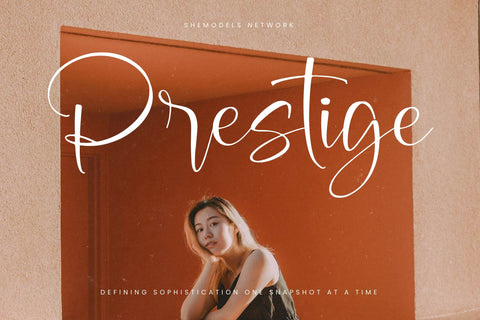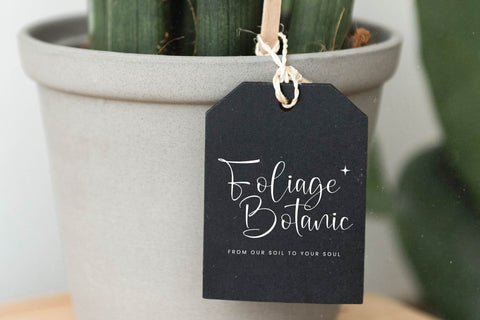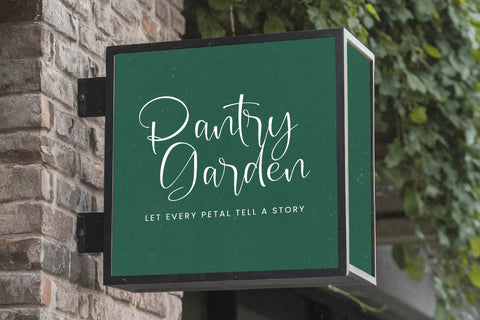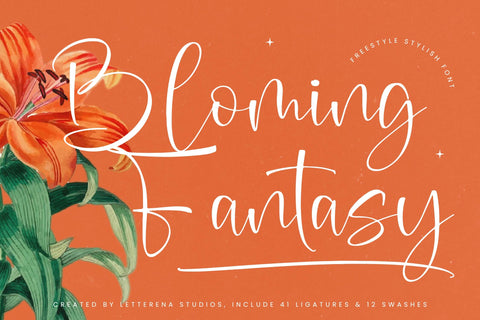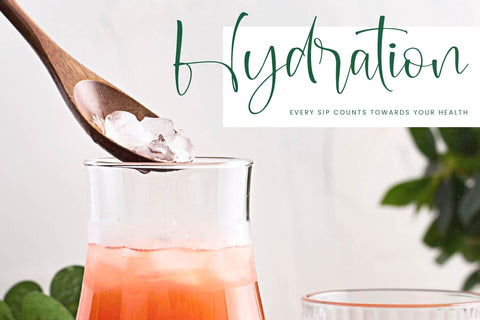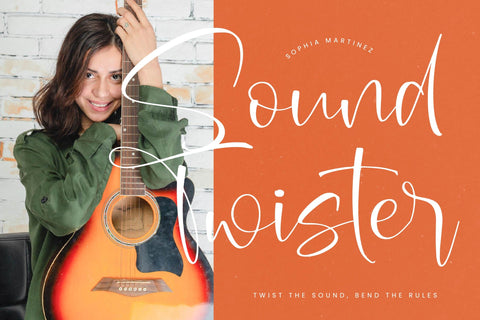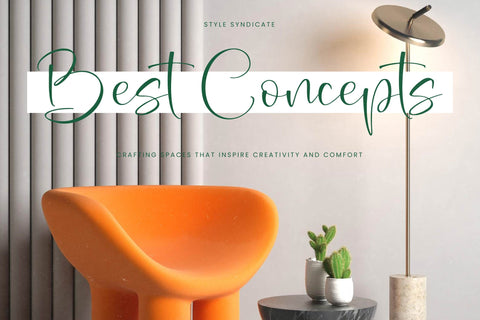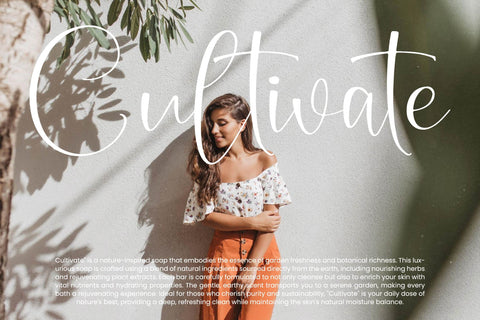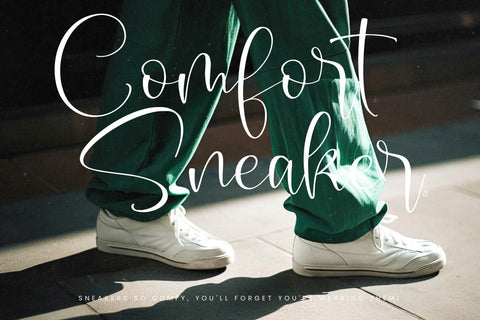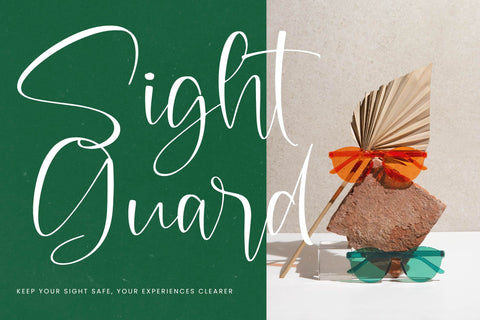
Bloming Fantasy - Freestyle Stylish Font
Bloming Fantasy - Freestyle Stylish Font , from Letterena, is a Luxury Script font, suitable for any projects such as: logos, branding projects, homeware designs, product packaging, mugs, quotes, posters, shopping bags, t-shirts, book covers, name card, invitation cards, greeting cards, label, photography, watermark, special events, and all your other luxury and beautiful projects that need a Luxury Script taste.